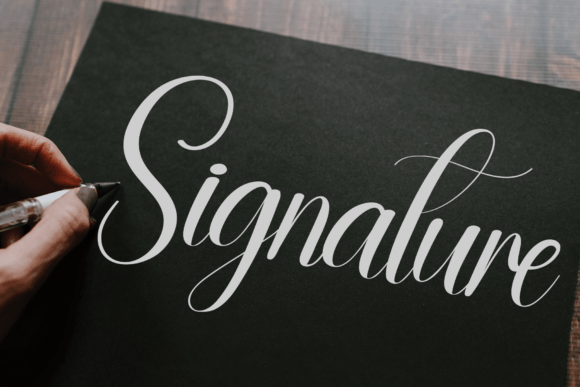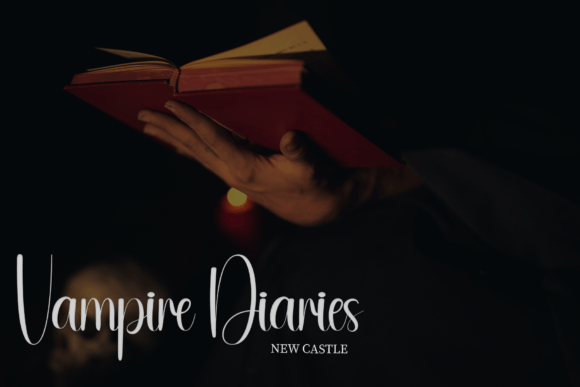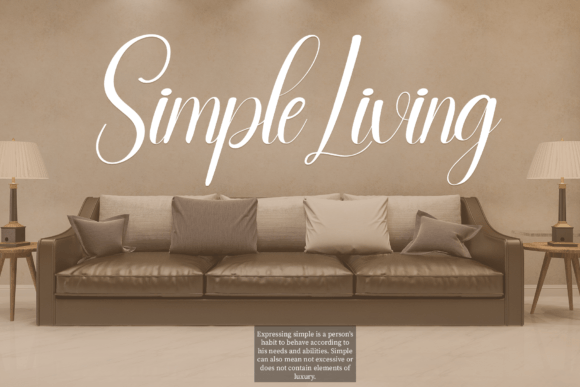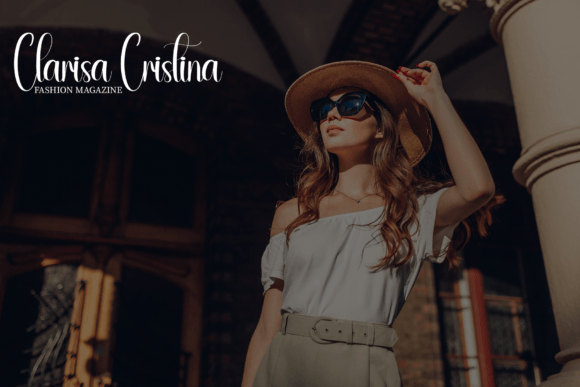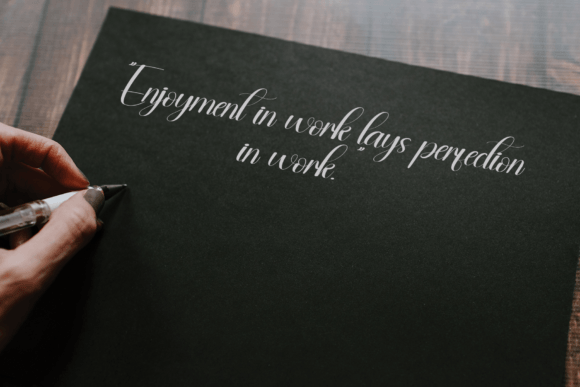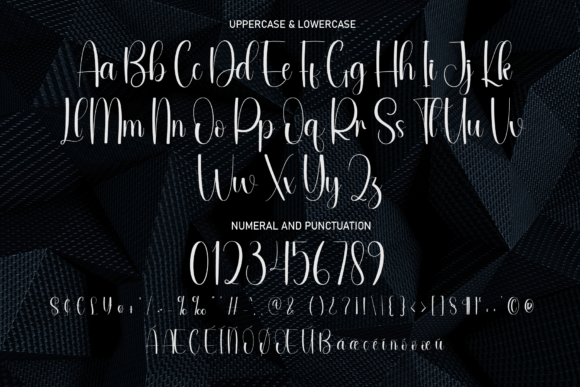
The Sweet Spot: Discovering the Exspression Font
I’ll never forget the time I was working on a wedding invitation project, and my client asked for a font that was “sweet, friendly, and not too fancy.” I scoured the internet, tried out dozens of fonts, but nothing seemed quite right. That was until I stumbled upon the Exspression font. This lovely handwritten font won my heart with its fresh and neat look, perfect for adding a fun touch to any design.
What I Love About Exspression ✨
- ✅ Sweet and Friendly: Exspression’s handwritten style is perfect for creating warm and inviting designs.
- ✅ Fresh and Neat: The font’s clean lines and simple shapes make it easy to read and versatile for various design projects.
- ✅ Perfect for Wedding and Party Designs: Exspression shines in wedding invitations, party cards, and other celebratory materials.
- ⚠️ Limited Use in Formal Contexts: Exspression’s playful nature makes it less suitable for formal or professional designs.
- ⚠️ Glyph Limitations: While Exspression has a range of glyphs, it might not have every special character or symbol you need.
- Experiment with OpenType features like ligatures and stylistic alternates to add flair to your text.
The Story Behind Exspression: A Designer’s Inspiration
Exspression was created with the intention of bringing a warm and friendly feel to digital and print designs. Inspired by the beauty of handwritten letters and the joy of personal connections, this font aims to make every project feel sincere and heartfelt. Whether it’s a wedding invitation or a simple greeting card, Exspression is designed to convey love and happiness.
Q: What makes Exspression unique?
A: Exspression stands out with its sweet and friendly handwritten style, making it perfect for designs that need a personal touch.
Q: Does Exspression support OpenType features?
A: Yes, Exspression supports various OpenType features, including ligatures and stylistic alternates, which can enhance your designs.
Q: Is Exspression suitable for body text?
A: While Exspression is beautiful for headings and short texts, it might not be the best choice for long body text due to its handwritten nature and readability at smaller sizes.